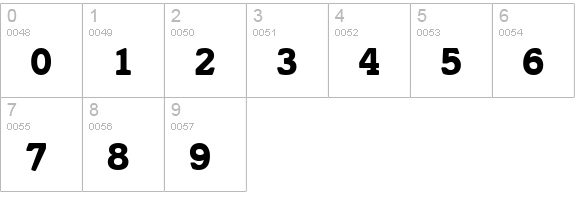
Ensemble SSi Bold Font Details
Ensemble SSi Bold is a strong, high-contrast variant in the Ensemble typeface family \xE2\x80\x94 well suited to headlines, attention-grabbing titles, and strong calls-to-action.
Ensemble SSi Bold font is a striking and versatile typeface that commands attention with its bold and stylish appearance. Perfect for creating eye-catching headlines, posters, and branding materials, this font exudes confidence and sophistication. With its clean lines and modern aesthetic, Ensemble SSi Bold font is sure to make a bold statement in any design project. Whether you're designing for print or digital media, this font will elevate your work to the next level. Best of all, Ensemble SSi Bold font is available for free download at FontsMarket.com. So go ahead and add this impressive font to your collection today and start creating stunning designs that stand out from the crowd.